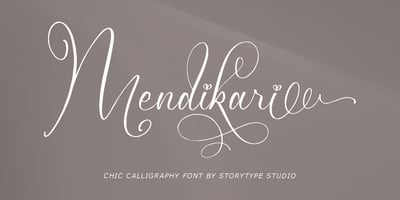
Mendikari Font Family was designed by Heru Utama Putra and published by Letterena Studios. Mendikari contains 2 styles and family package options. Mendikari – Chic Calligraphy Font A luxury script that has its own unique style & modern look.This typeface is perfect for an elegant & luxury logo, book or movie title design, fashion brand, magazine, clothes, lettering, quotes, and so much more.